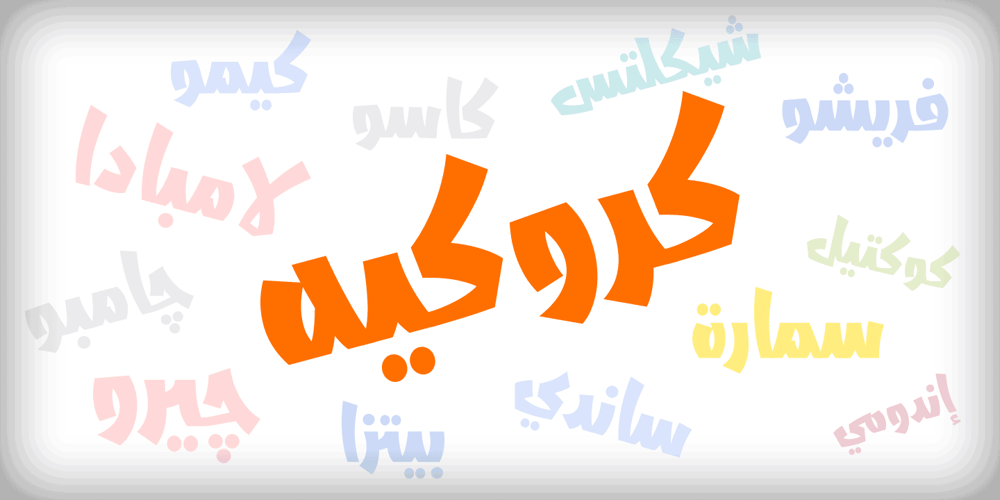
Abdo Logo
Abdo Logo font
Abdo Logo Font Family was designed by Abdulsamie Rajab Salem and published by Abdo Fonts. Abdo Logo contains 1 styles and family package options. Abdo Logo is an Arabic display and text typeface. It is useful for headlines, books covers, logos design, slogans, advertisement and other graphic projects. The font is based on the simple lines of free style calligraphy. The font supports Arabic language and I may extended to cover additional scripts.